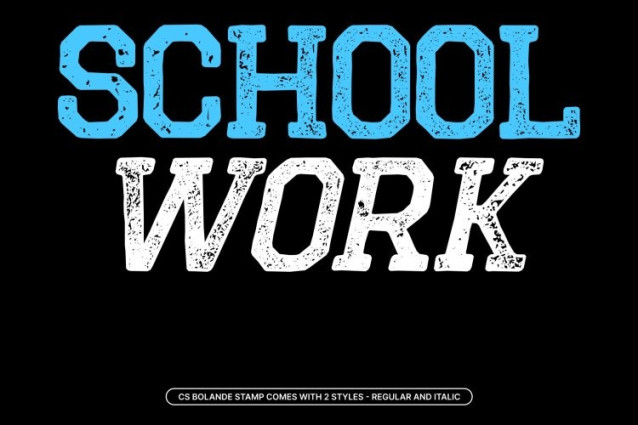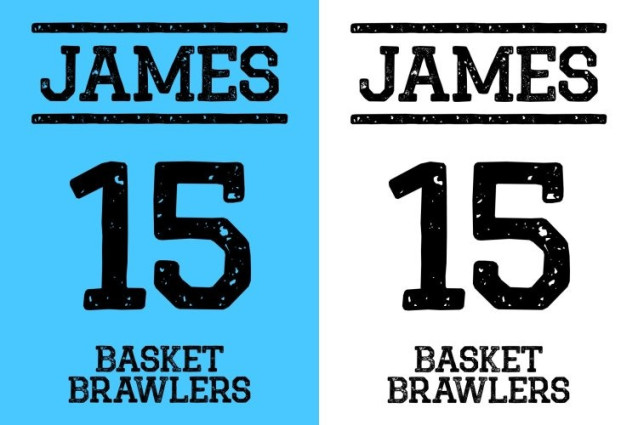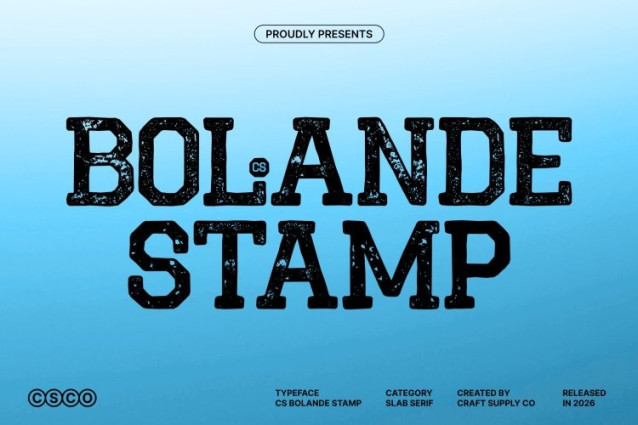
CS Bolande Stamp Font
CS Bolande Stamp Font This is a bold slab serif typeface built from strong, block-like forms and enhanced with a subtle stamped texture. Its clean, sharp construction delivers a commanding visual presence, while gentle ink irregularities and slightly distressed edges introduce a tactile, handcrafted feel. This balance creates a font that feels solid, confident, and visually engaging.
Sharp Structure with Confident Readability
Designed for clarity and strength, features precise geometry and firmly grounded slab serifs that anchor every character. The stamped texture softens its rigidity just enough to add personality without sacrificing legibility. Whether set in uppercase or lowercase, the font maintains a consistent rhythm and strong readability, even at large display sizes.
Ideal for Posters, Branding, and Modern Statements
From bold posters and striking headlines to logos and contemporary branding, delivers a cool, modern vibe with undeniable authority. Its sharp linear design captures attention instantly, while the slab serif foundation keeps the typography structured and professional. The stamped finish adds depth, making designs feel more expressive and tangible.
Timeless Strength Meets Contemporary Character
This font bridges tradition and modern design combining the reliability of classic slab serif typography with a modern stamped texture. The result is a versatile display font that projects confidence, stability, and sophistication, perfect for editorial layouts, branding systems, and impactful digital or print visuals.